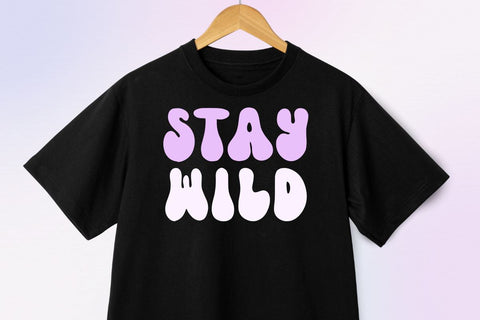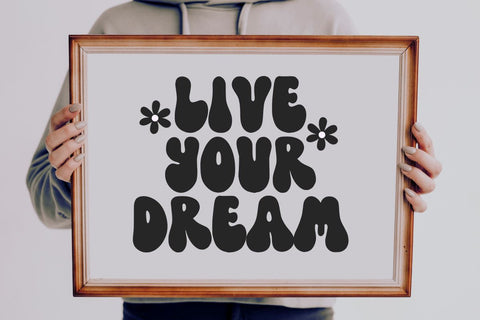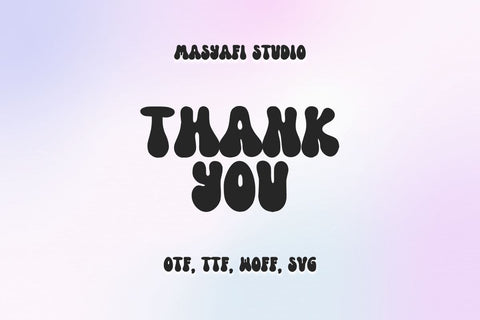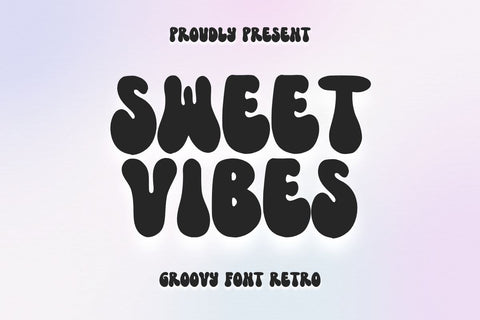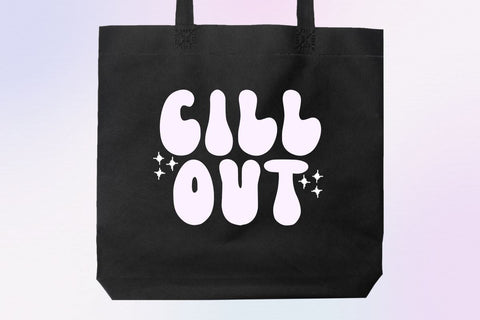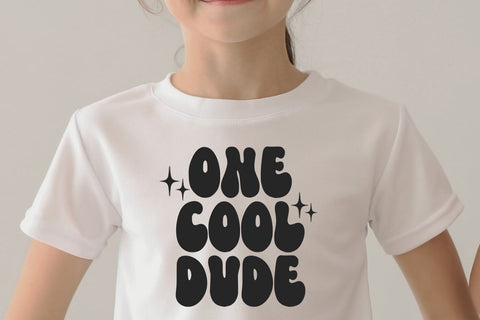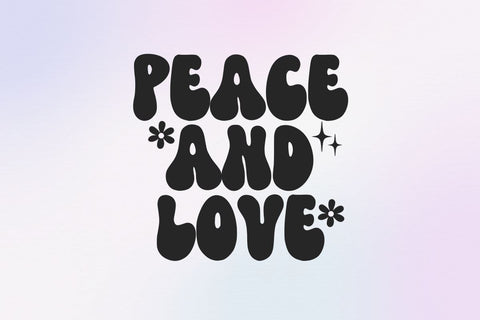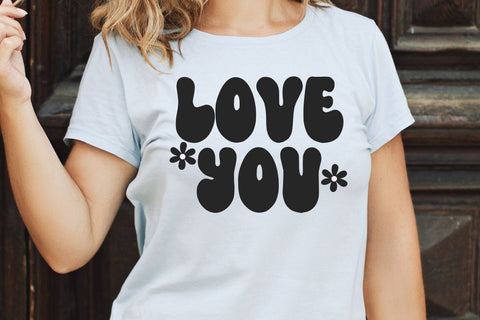
Sweet Vibes - Groovy Retro Font
Hi, Introducing Sweet Vibes - Groovy Retro Font
A Groovy Retro Font with a cute and adorable style. This font is cool for mugs, t-shirts, quotes, tote bags, decorations etc